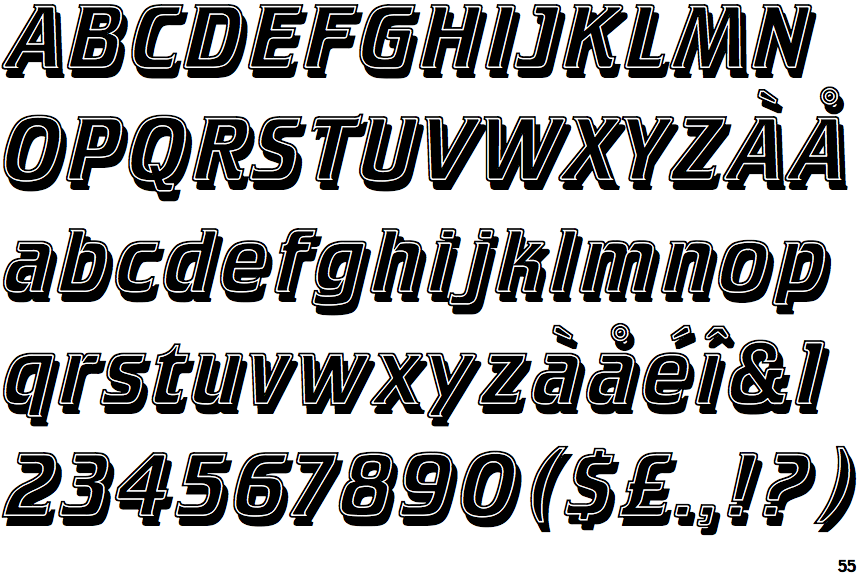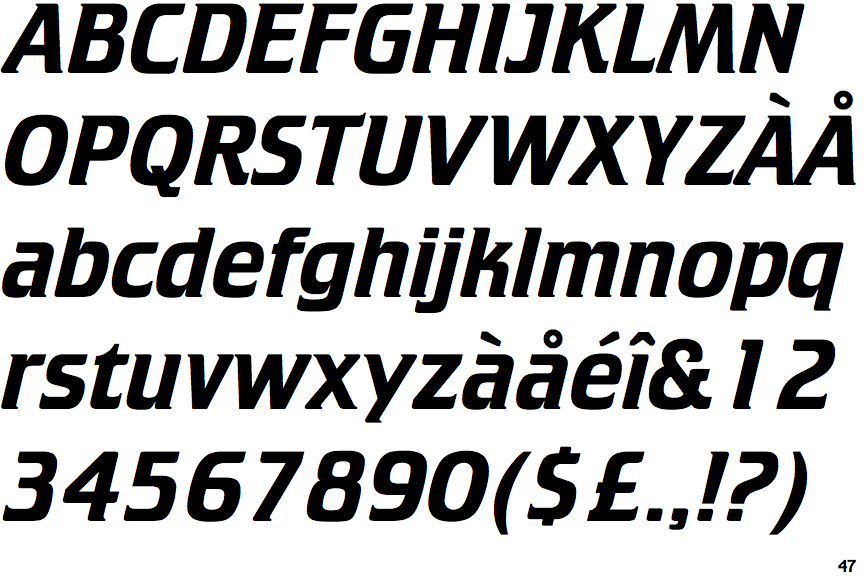
Crillee Italic Font
Crillee Italic Font - Web crillee std italic is the perfect font for all your fun designs. Don't worry, our files are safe from. The font subfamily is italic. It has been downloaded 39 times. You can also visit the author website, clicking here: The font family is crillee. It has been downloaded 228 times. 0 users have given the font a rating of 0.0 out of 5. You can find more information about crillee italic std regular and it's. You can find more information about crillee italic and it's character map in the sections below.
0 users have given the font a rating of 0.0 out of 5. It has been downloaded 39 times. You can find more information about crillee italic std regular and it's. Web crillee is a family of our styles that was originally produced by letraset. The font family is crillee. 0 users have given the font a rating of 0.0 out of 5. The font subfamily is italic. The crillee std italic font was designed by dick jones. Web crillee std italic is the perfect font for all your fun designs. In 1980, dick jones designed crillee italic.
It has been downloaded 39 times. You can also visit the author website, clicking here: 0 users have given the font a rating of 0.0 out of 5. Jones also designed the family's second style, crillee extra bold italic, in 1981. The crillee std italic font was designed by dick jones. Web crillee italic std regular is a regular opentype font. Web crillee italic is a italic opentype font. In 1980, dick jones designed crillee italic. 0 users have given the font a rating of 0.0 out of 5. The font subfamily is italic.
Crillee Italic truetype font
You can also visit the author website, clicking here: 0 users have given the font a rating of 0.0 out of 5. It has been downloaded 39 times. You can find more information about crillee italic and it's character map in the sections below. The crillee std italic font was designed by dick jones.
0 users have given the font a rating of 0.0 out of 5. You can find more information about crillee italic std regular and it's. In 1980, dick jones designed crillee italic. The font subfamily is italic. Web crillee italic is a italic opentype font.
Web crillee is a family of our styles that was originally produced by letraset. Web crillee std italic is the perfect font for all your fun designs. 0 users have given the font a rating of 0.0 out of 5. 0 users have given the font a rating of 0.0 out of 5. Jones also designed the family's second style,.
Web crillee is a family of our styles that was originally produced by letraset. Web crillee std italic is the perfect font for all your fun designs. You can find more information about crillee italic and it's character map in the sections below. 0 users have given the font a rating of 0.0 out of 5. Web crillee italic std.
0 users have given the font a rating of 0.0 out of 5. Web crillee std italic is the perfect font for all your fun designs. The crillee std italic font was designed by dick jones. Web crillee italic std regular is a regular opentype font. You can also visit the author website, clicking here:
Identifont Crillee Italic Inline Shadow
Click the download button to download the compressed file in.zip format. Don't worry, our files are safe from. The font subfamily is italic. 0 users have given the font a rating of 0.0 out of 5. Web crillee italic is the perfect font for all your fun designs.
Identifont Crillee Italic
Web crillee italic is a italic opentype font. You can find more information about crillee italic std regular and it's. Jones also designed the family's second style, crillee extra bold italic, in 1981. The crillee std italic font was designed by dick jones. Web crillee italic std regular is a regular opentype font.
Crillee SH Light Italic Fonts
You can also visit the author website, clicking here: It has been downloaded 228 times. 0 users have given the font a rating of 0.0 out of 5. Click the download button to download the compressed file in.zip format. It has been downloaded 39 times.
Download free Crillee It BT Italic font
Web crillee italic is a italic opentype font. The font family is crillee. Web crillee std italic is the perfect font for all your fun designs. 0 users have given the font a rating of 0.0 out of 5. Click the download button to download the compressed file in.zip format.
Web Crillee Italic Std Regular Is A Regular Opentype Font.
0 users have given the font a rating of 0.0 out of 5. Web crillee std italic is the perfect font for all your fun designs. It has been downloaded 228 times. It has been downloaded 39 times.
0 Users Have Given The Font A Rating Of 0.0 Out Of 5.
The crillee std italic font was designed by dick jones. Jones also designed the family's second style, crillee extra bold italic, in 1981. Don't worry, our files are safe from. Web crillee italic is a italic opentype font.
The Font Family Is Crillee.
Web crillee is a family of our styles that was originally produced by letraset. You can find more information about crillee italic std regular and it's. Click the download button to download the compressed file in.zip format. Web crillee italic is the perfect font for all your fun designs.
In 1980, Dick Jones Designed Crillee Italic.
You can also visit the author website, clicking here: You can find more information about crillee italic and it's character map in the sections below. The font subfamily is italic.